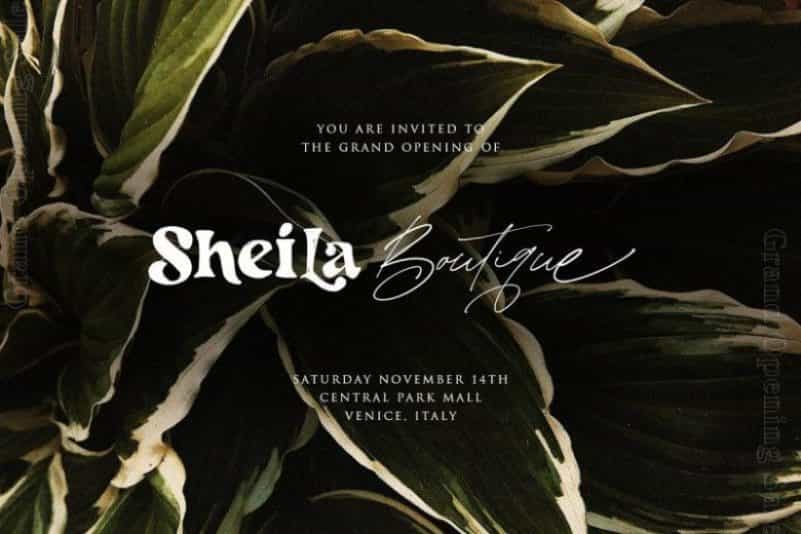
Mabrick is a stylish hand-lettering script font with adorable looks. A simple hand written font ideal for a craft project. Vintage, modern, and bold typeface. Ideal for logotype, poster, caption, T shirts, etc.